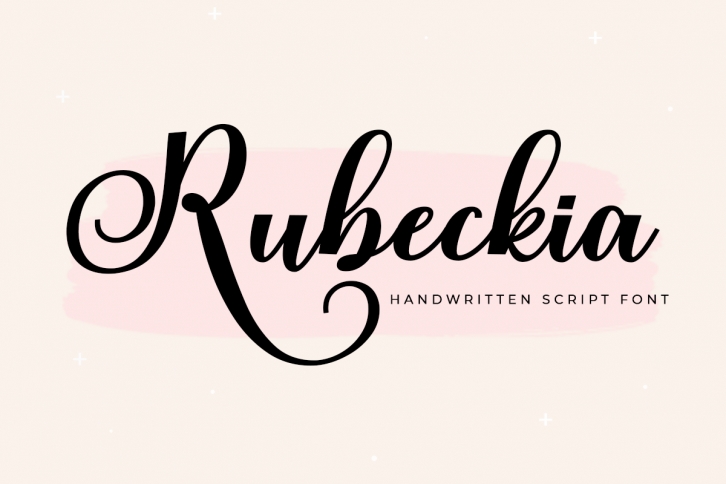
Rubeckia is a beautiful, elegant and refined script typeface. It has the flexibility to use logos, branding, and even wedding designs while still being stylish to apply to any project.